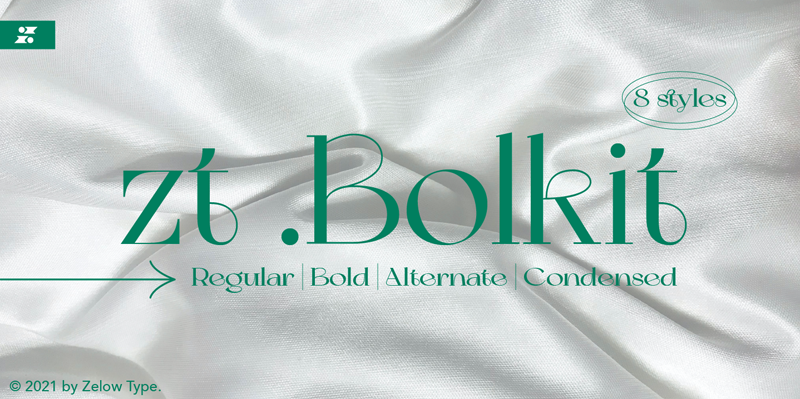
Preview and download Bolkit Rayek Font. Created by Khaiuns in Basic Serif styles with 100% Free license.
To download the full font family (all weights, glyphs and numbers) and acquire the commercial license please visit our website: https://creativemarket.com/zelowtype/6698968-Bolkit-Display-Serif Donation are very appreciated. Paypal account for donation : https://paypal.me/khaiuns CONTACT US: have a question?: selowtype@gmail.com ______________ zt. Bolkit Serif is a typeface with two types of styles, one with an elegant and smooth arch shape, while the other has a type of firmness and the character presents a strong character in it. Being a letter whose concept is very interested in simplicity, the lines present in the elegant and firm zt. Bolkit make you feel it too. zt. Bolkit also comes with two widths that all have two weights (Thin and Bold) Containing characters that include uppercase letters, lowercase letters, numbers, punctuation, 52 ligatures, 25 alternatives and symbols that will make your designs cooler in the future. Do not forget also this supports more than 60 languages derived from Latin, namely Western, Central and Southeastern European languages. I hope you have a blast using zt.Bolkit Thanks for use this font ~ Khaiuns X zelowtype |